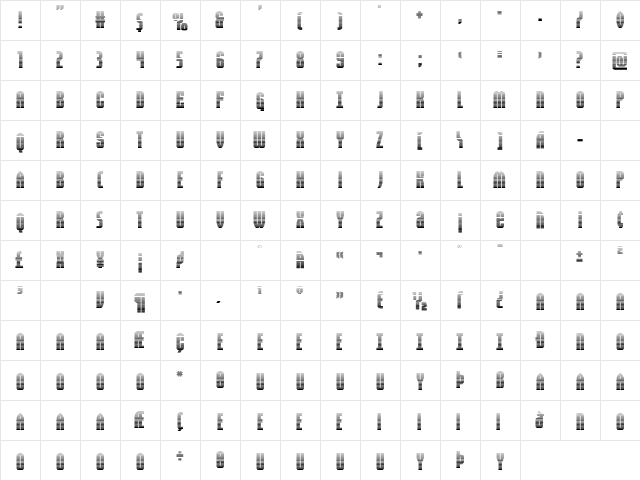
Valiant Times Gradient Regular
Design Context for Valiant Times Gradient Typeface
Valiant Times Gradient is a composed and adaptable typeface that performs quietly and consistently across a wide range of design contexts.